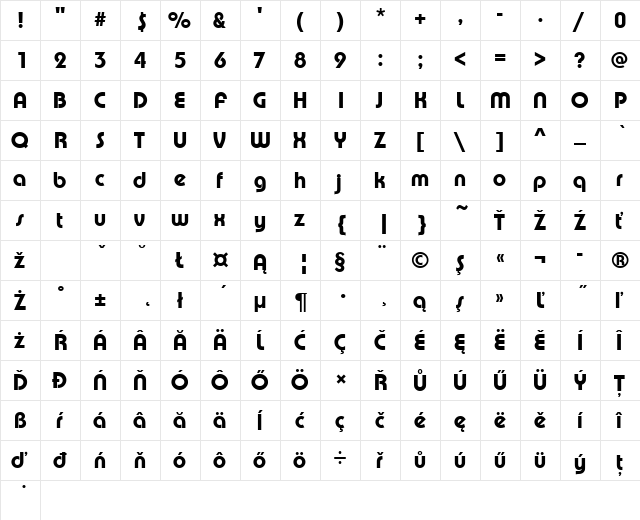
PumpDEEMed Regular
Design Context for PumpDEEMed Typeface
PumpDEEMed offers clean, dependable letterforms without strong stylistic allegiance, making it a practical choice for designers who need flexibility.